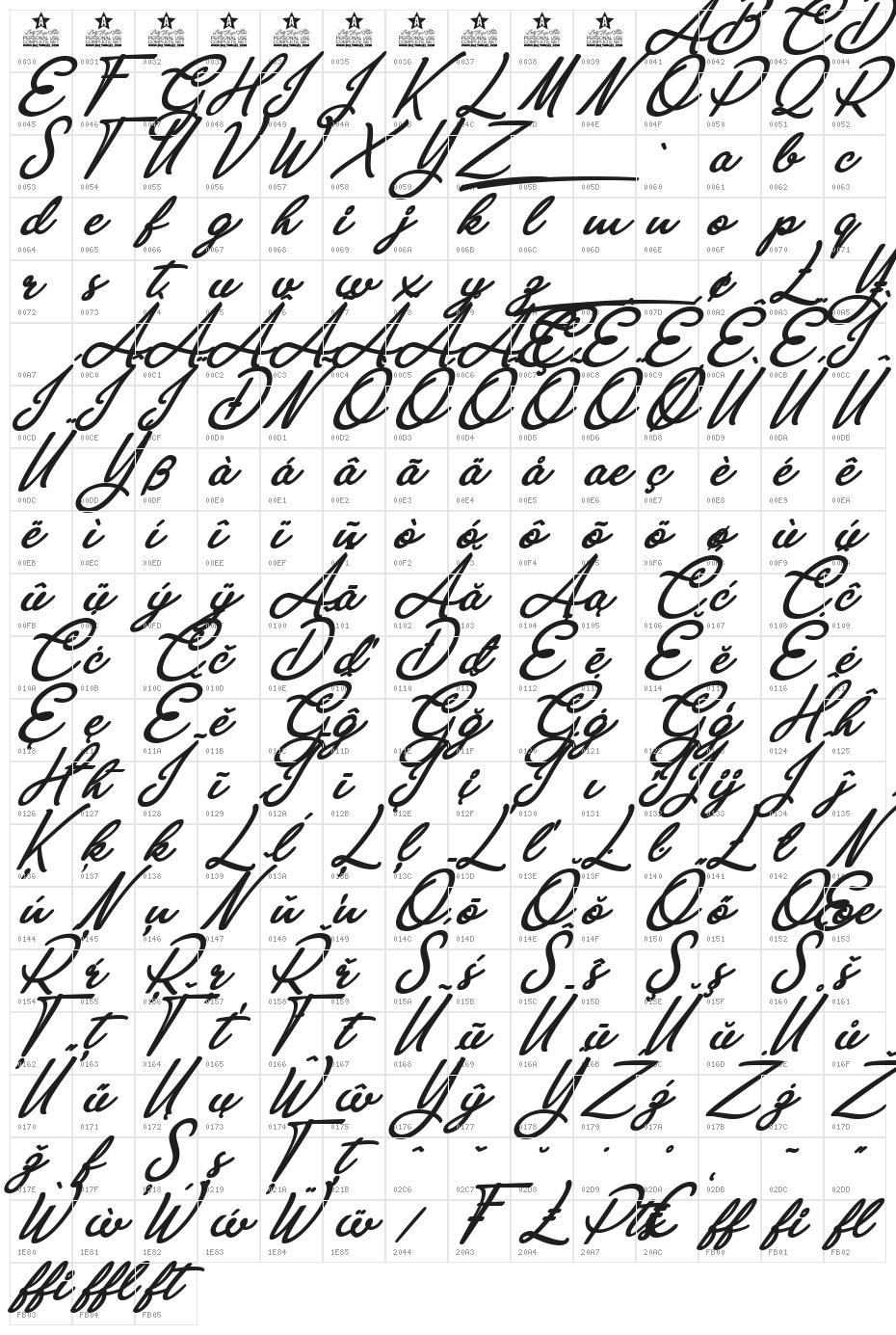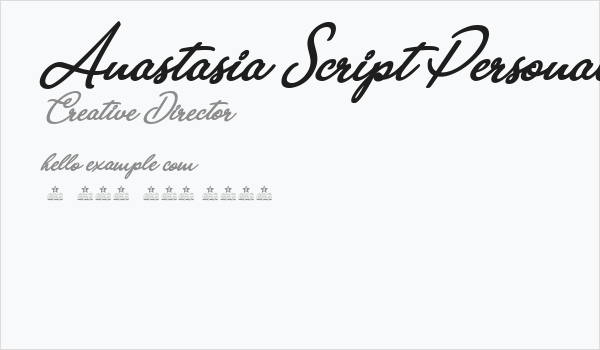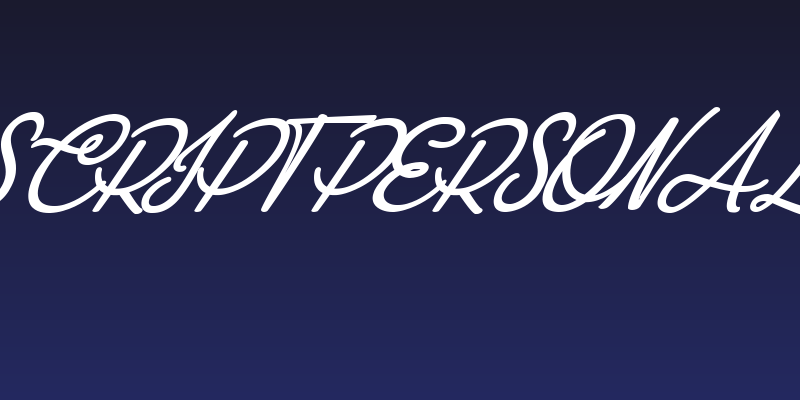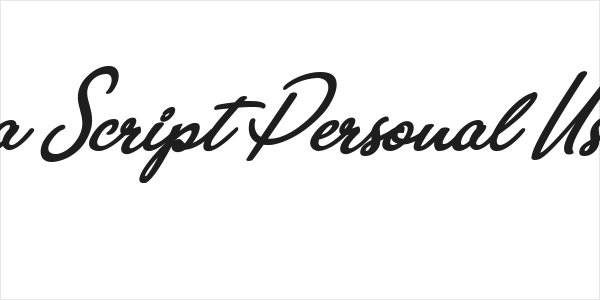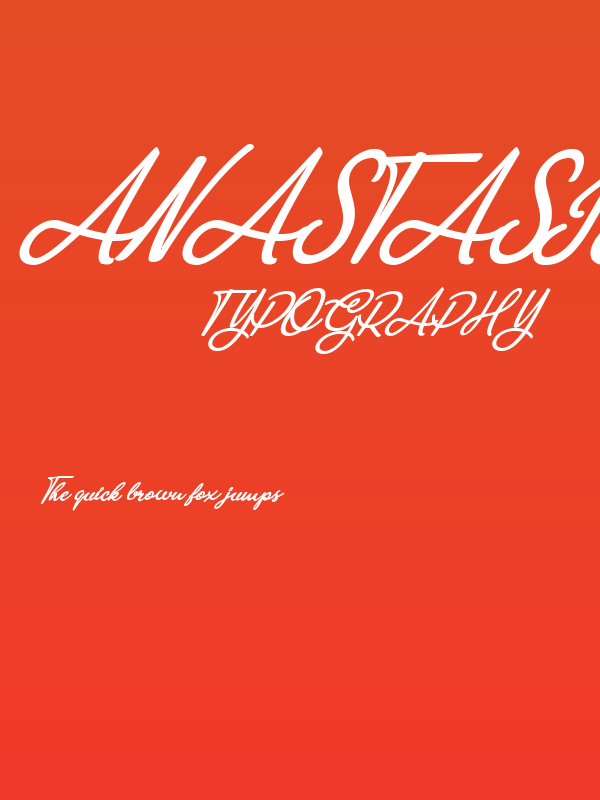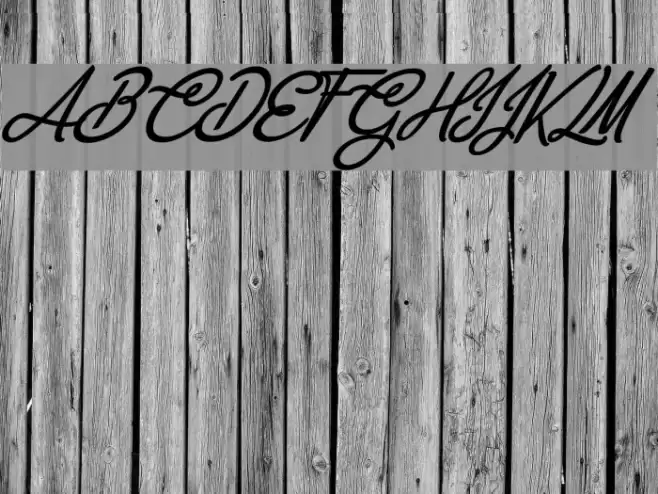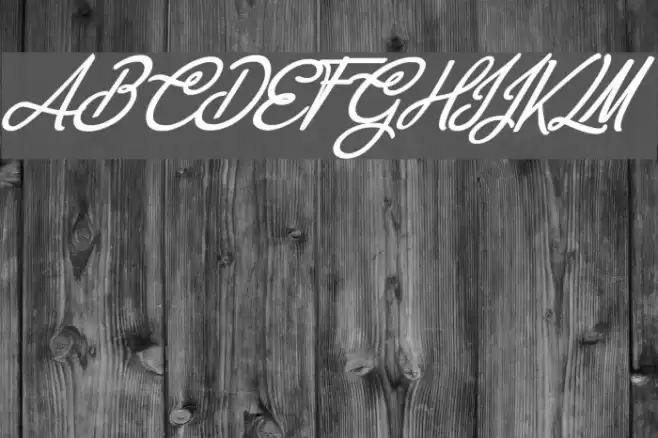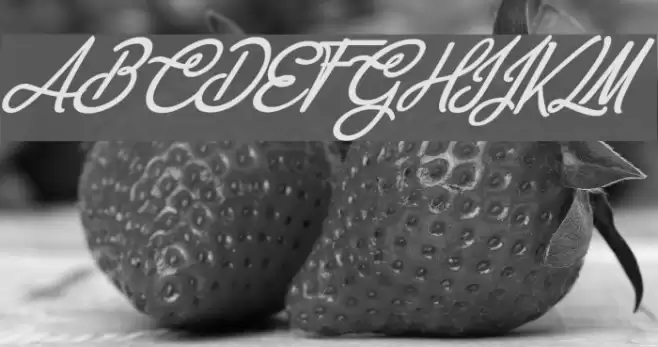
Anastasia Script Personal Use Regular Font
Anastasia Script Personal Use Regular Description
This elegant script font features flowing, interconnected letters that mimic the fluidity of handwriting. Each character is crafted with smooth curves and a consistent stroke width, creating a harmonious and sophisticated appearance. The uppercase letters are bold and prominent, while the lowercase letters maintain a graceful and delicate form. The font exudes a sense of elegance and charm, making it ideal for formal invitations, branding, and decorative purposes. Its stylish and refined nature is perfect for projects that require a touch of class and sophistication.
| Overall Style | Elegant |
| Use Case | Logos, Invitations, Decorative Text |
| Proposed Projects | Ideal for wedding invitations, branding, greeting cards, and decorative designs. |